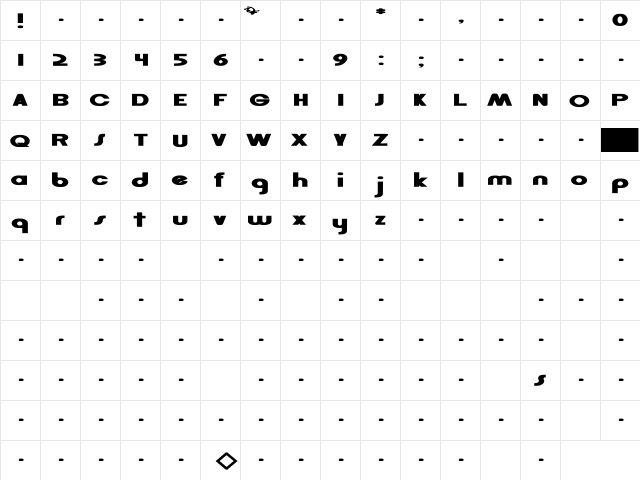
Rsgordon Ex Bold Bold
Design Context for Rsgordon Ex Bold Typeface
Rsgordon Ex Bold is a composed and adaptable typeface that performs quietly and consistently across a wide range of design contexts. The heavy weight commands attention and anchors typographic hierarchies.